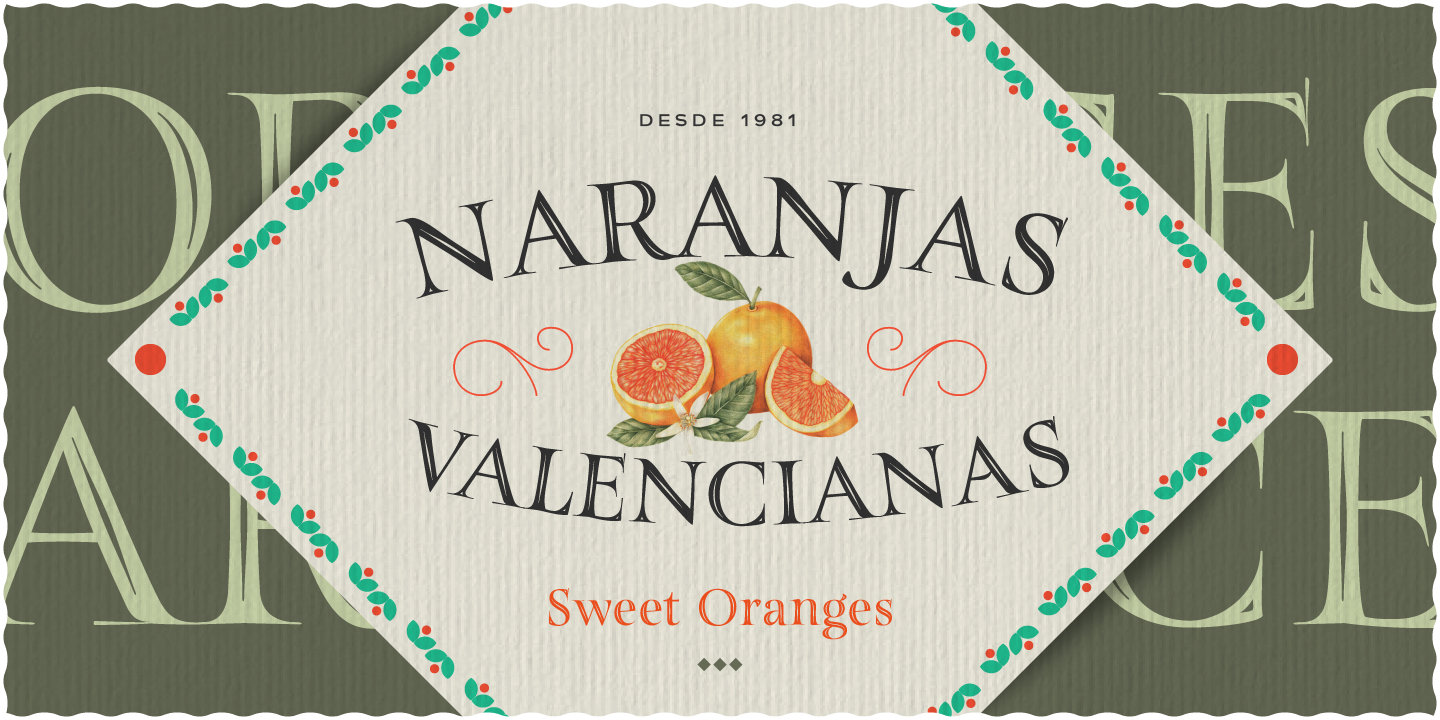
Turquoise Inline Font is a distinct and visually captivating typeface, characterized by its unique inline design that adds depth and a retro-modern flair to any project. Imagine this font being used for eye-catching poster designs for a vintage-themed event, instantly transporting viewers back in time with a contemporary twist. It's also an excellent choice for bold headlines in magazines, vibrant album covers, or quirky branding for creative businesses, where a strong graphic presence is desired. Furthermore, Turquoise Inline Font can bring a playful yet sophisticated edge to greeting cards, web banners, and even animated titles, making any text pop with its layered appearance.
What makes Turquoise Inline Font truly exciting is its inherent graphic quality, where the "inline" feature creates a striking visual effect without needing extra design elements. This isn't just a stylistic choice; it gives the font an immediate three-dimensional feel and a dynamic presence. It perfectly blends a sense of nostalgia with modern design principles, offering a versatile tool for designers looking to create impact and intrigue. It stands out from solid or outlined typefaces, providing a unique texture and visual interest that can transform simple text into a design statement. For those aiming to infuse their work with character, energy, and a memorable aesthetic, Turquoise Inline Font offers a genuinely captivating solution.
Turquoise Inline Font Family
Turquoise Inline Font typically comes with a family designed to maximize its distinctive visual impact and ensure harmonious application across various design elements. You'll often find it available in its core Regular inline style. Depending on the designer, some families might also include Solid or Outline versions that complement the inline style, allowing for layering effects or different design choices within the same aesthetic family. This versatility ensures that while the inline style remains the star, designers have options to create visual hierarchy and depth, making the font adaptable for both prominent display use and more subtle graphic accents.